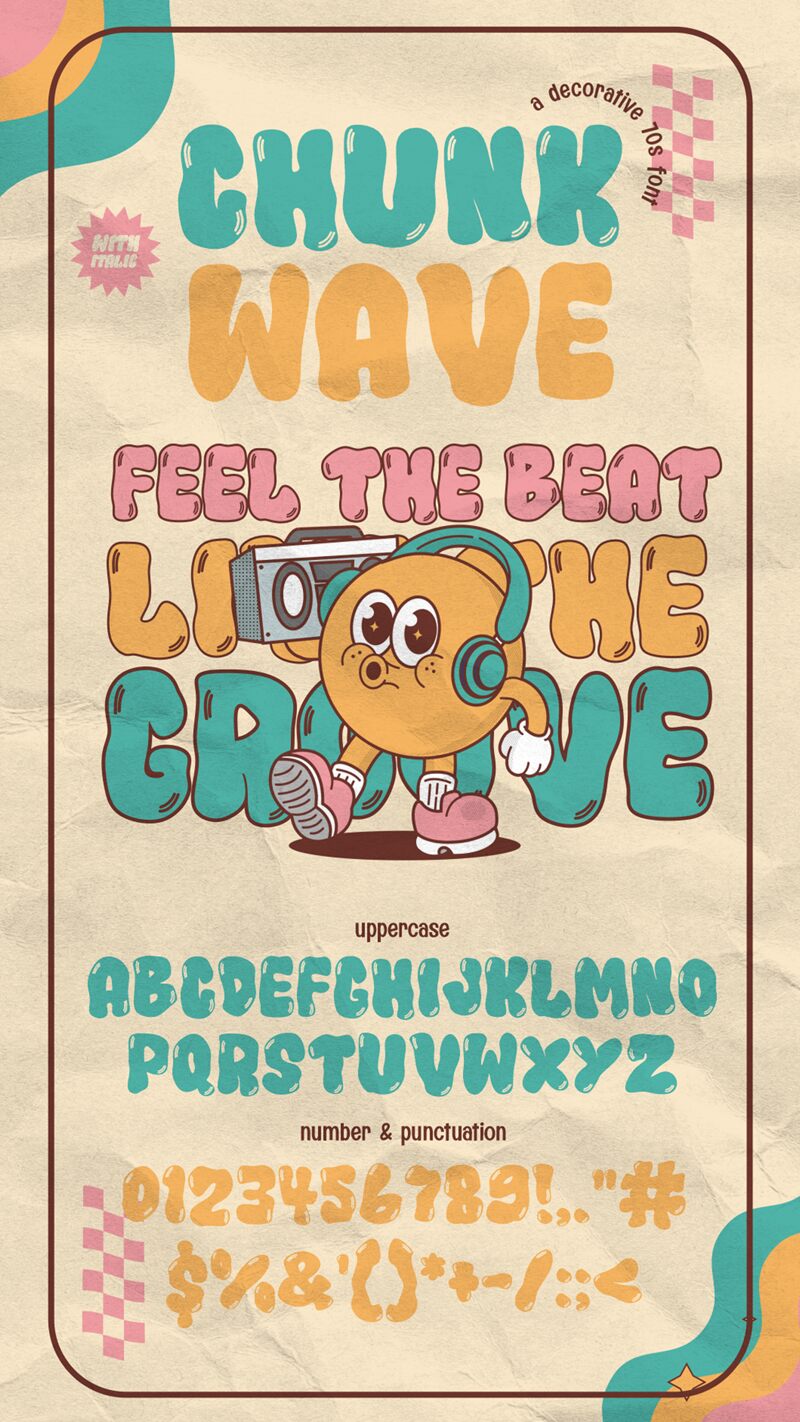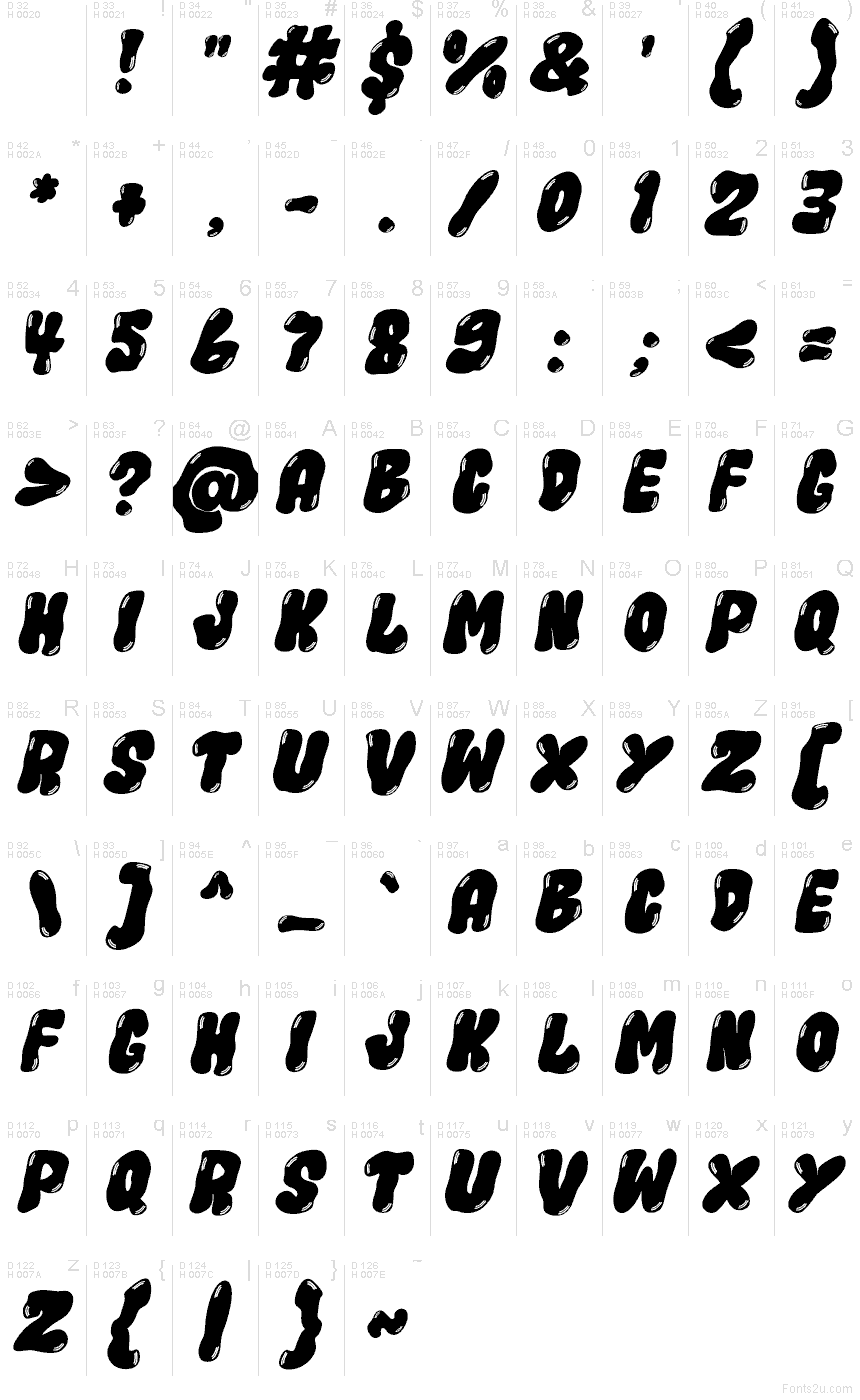
Chunk Wave Deco Italic
Chunk Wave Deco Italic font by Rizal Yusepudin Salman & Muhammad Panji Ramdhani of Cikareotype x Figuree brings a juicy, wave-swept swagger to the Chunk Wave Deco family. It’s a free groovy font, with chunky letterforms that feel airbrushed and glossy, then slashed with rhythmic white ripples that suggest motion and shine. The italic pull keeps everything moving forward, like a bold headline caught in a warm tide.
Using Chunk Wave Deco Italic works beautifully for poster titles, album covers, streetwear tags, café signage, festival promos, retro-inspired packaging, and punchy social ads. Set it large so the internal waves stay crisp, and pair this free font with a clean geometric sans for body copy to keep the energy focused.